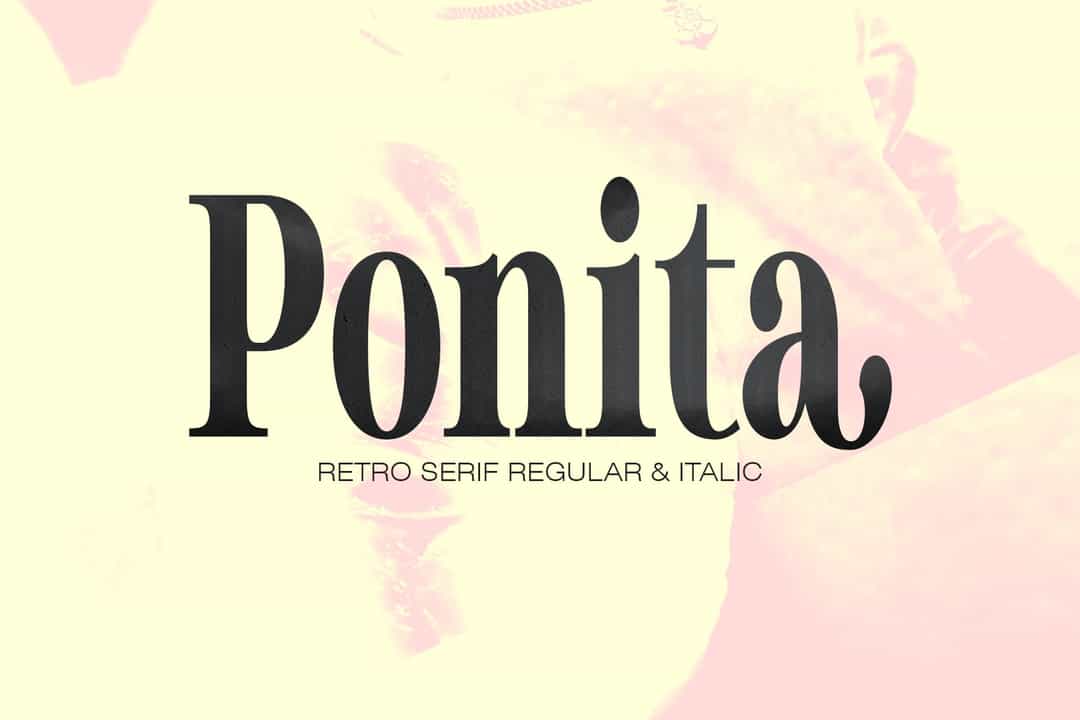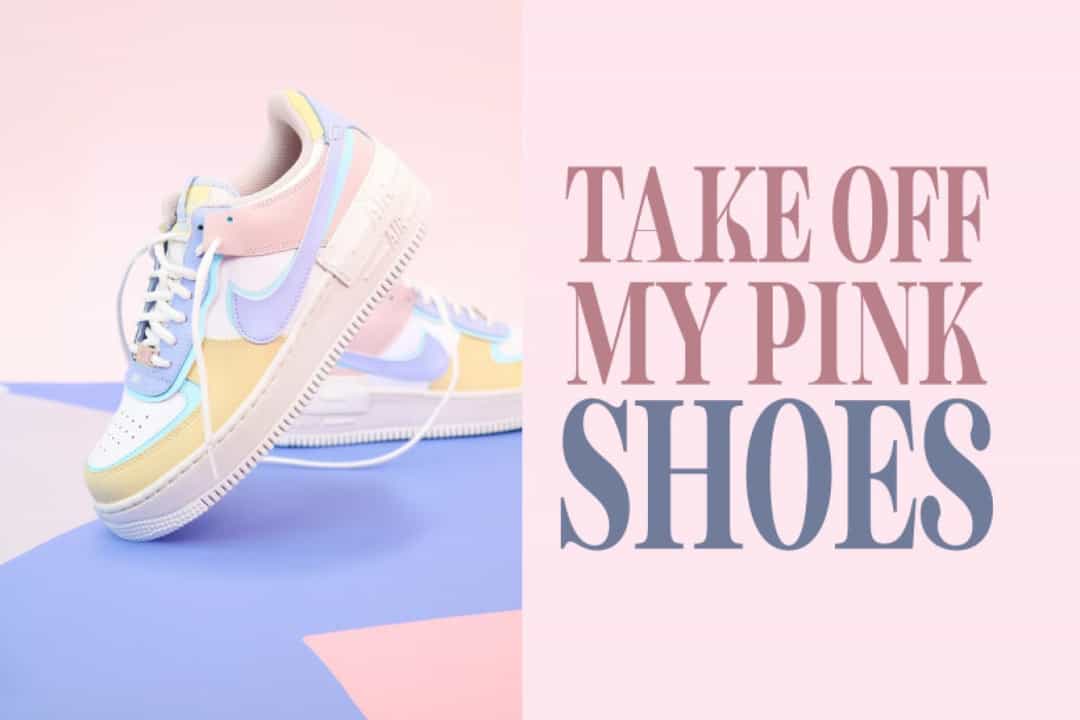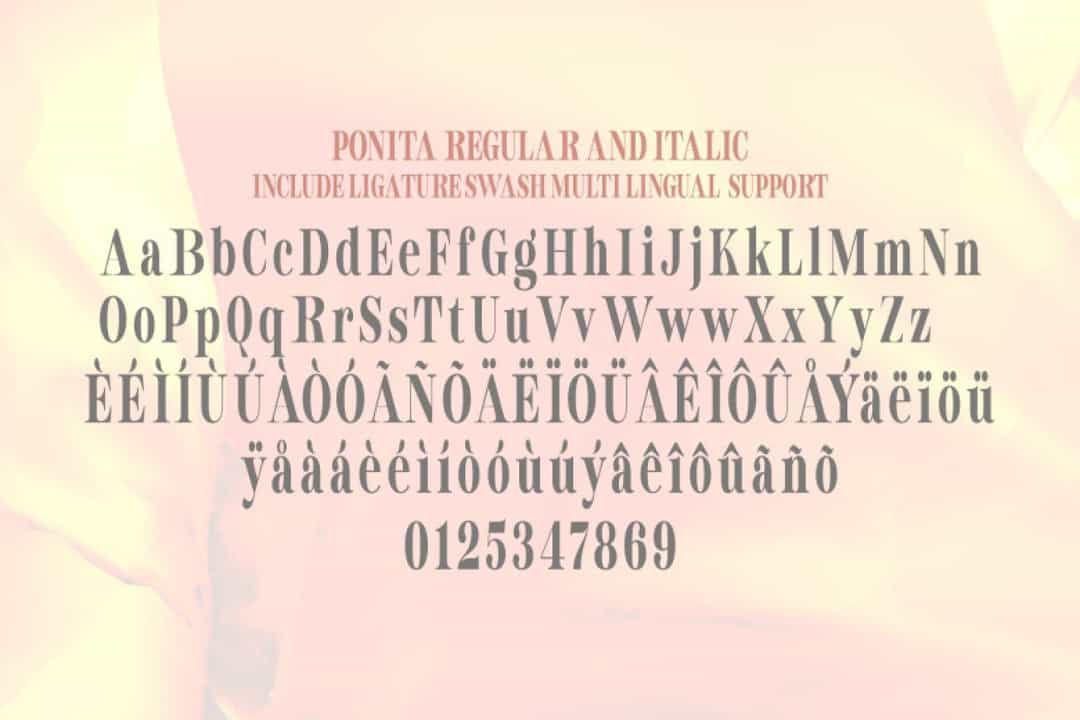
Pontita Serif Font showcases a modern and vibrant style packed with features such as open type ligatures and language support. Imagine Pontita Serif! This font stands out among others because of its striking appearance – modern yet classic at once; surely attracting attention to your company name and image!